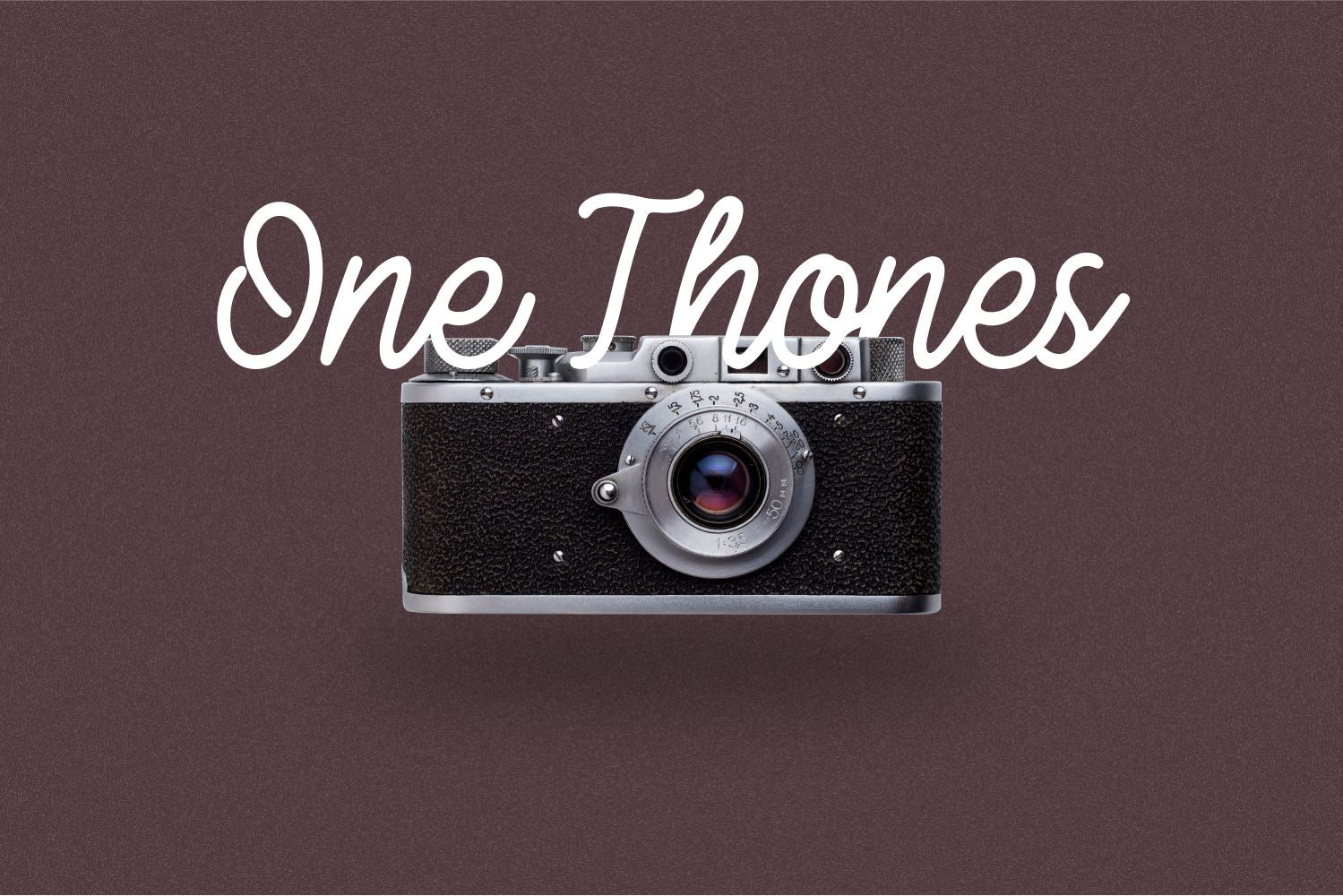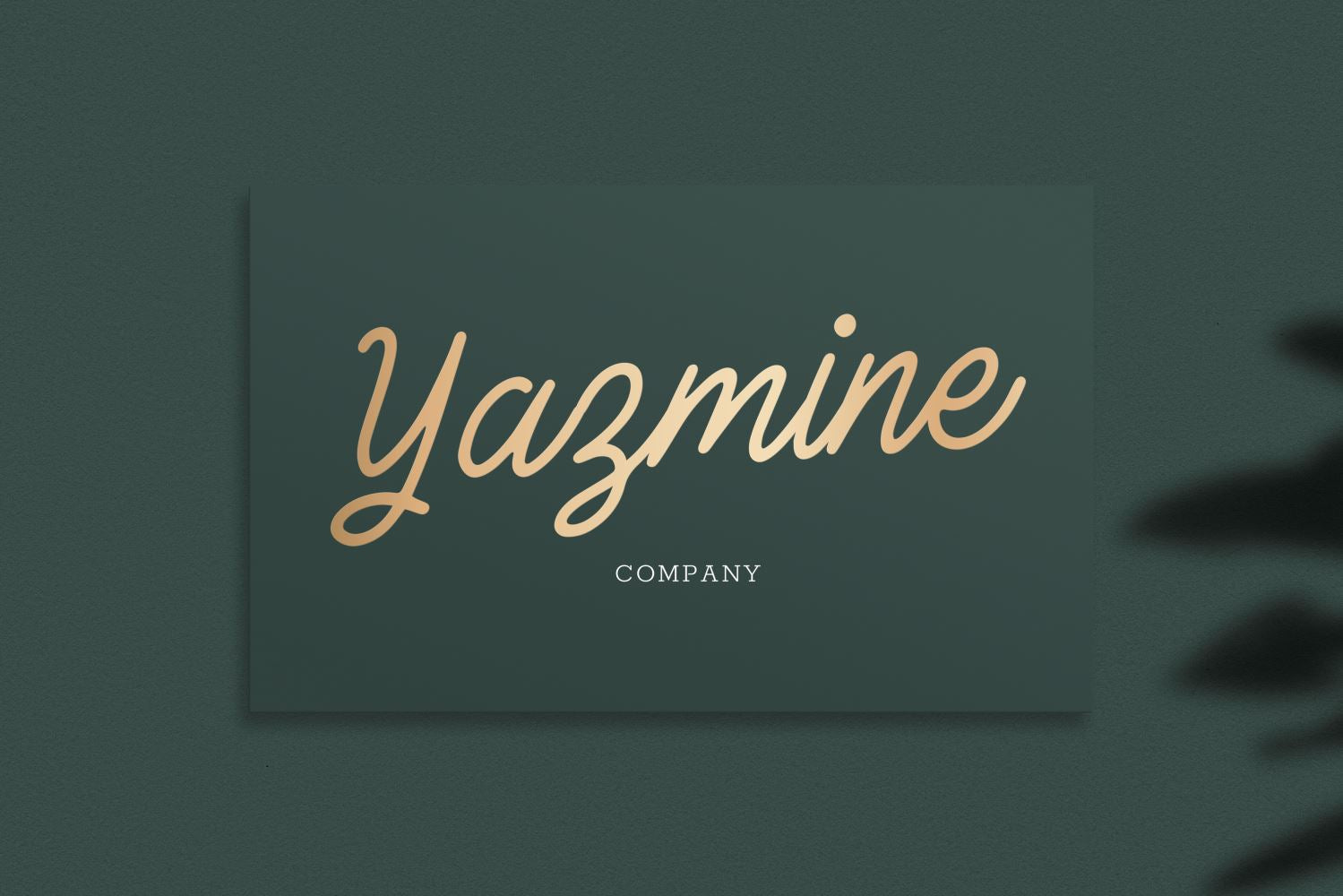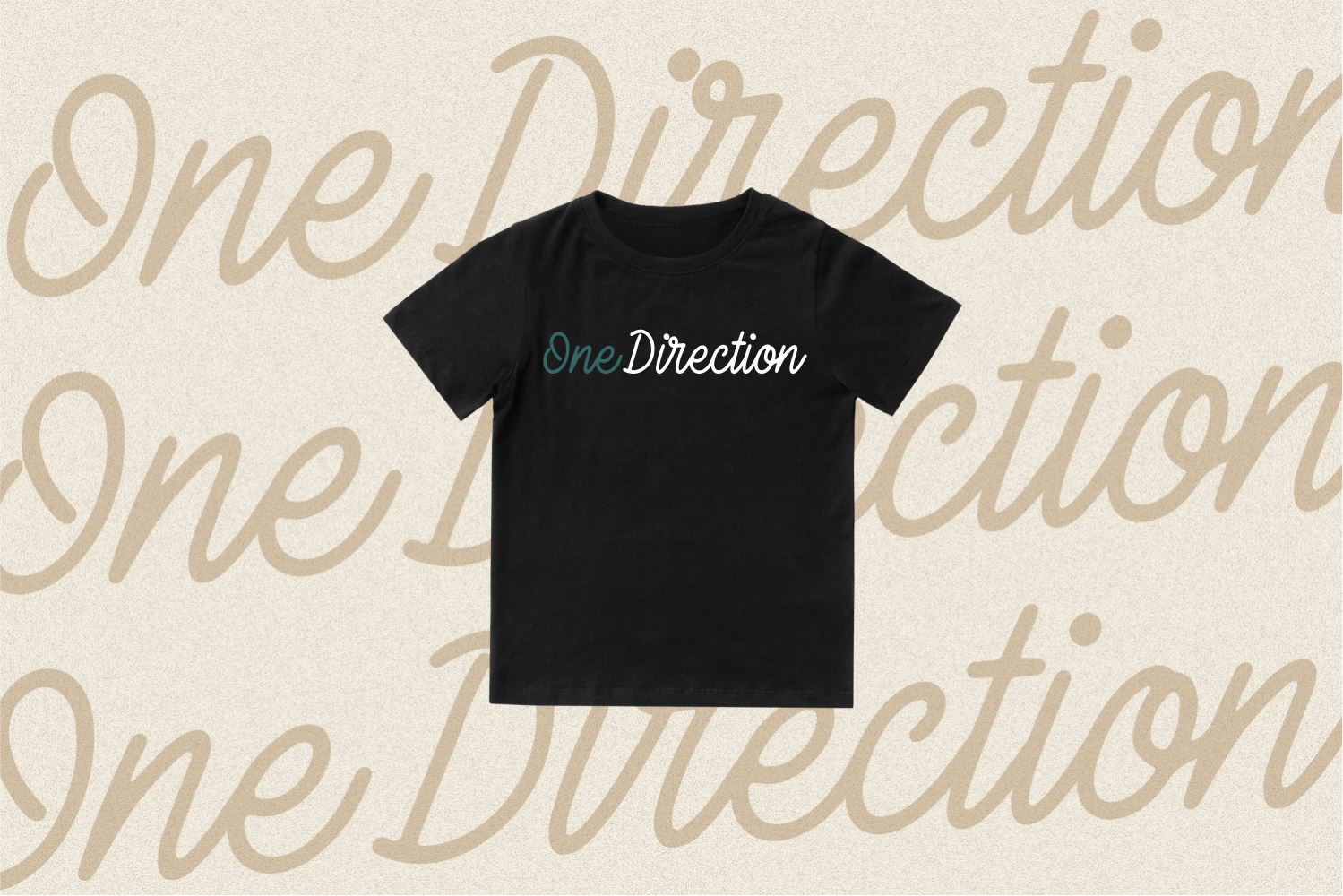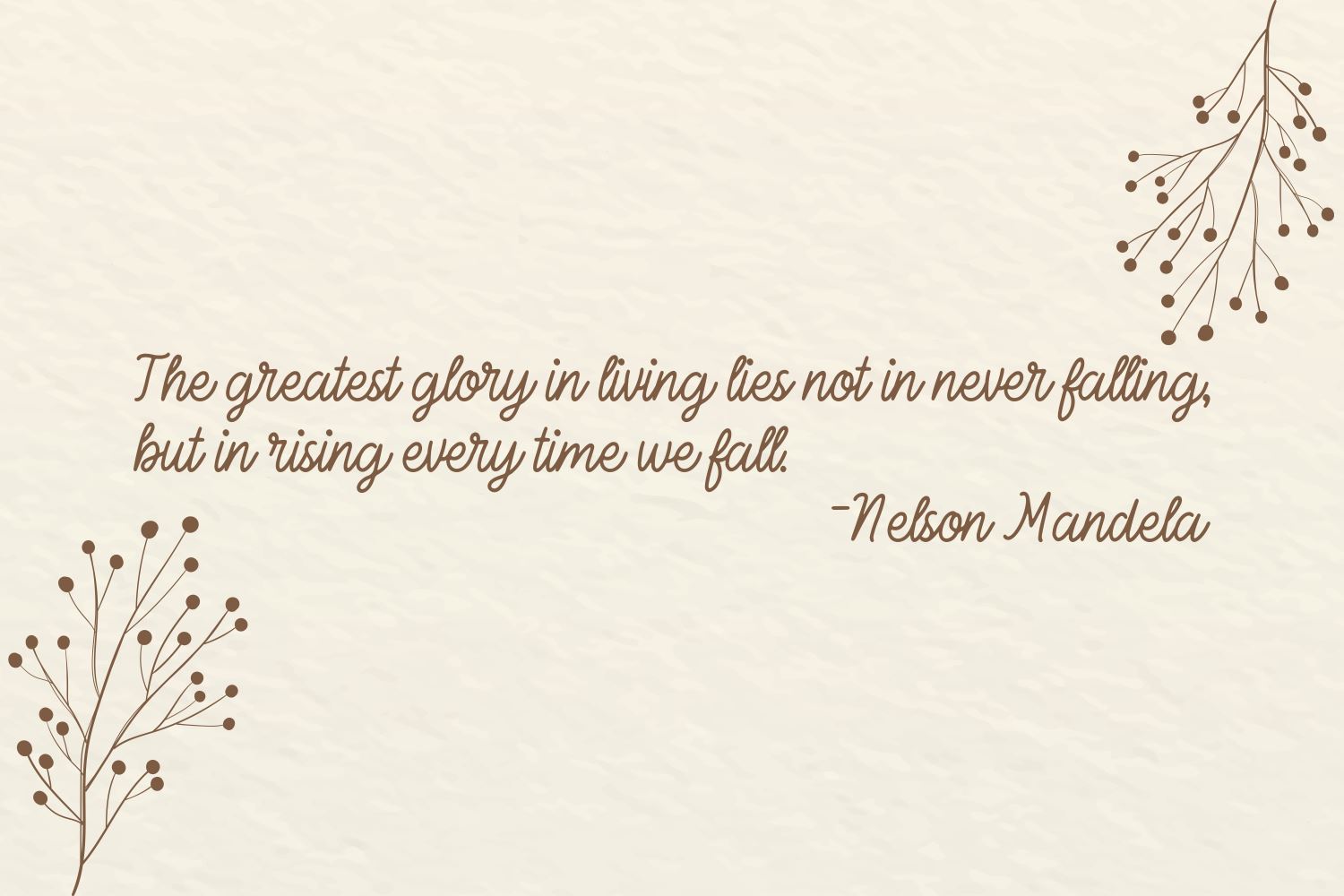
About Gelatique
Introducing Gelatique Font by Forberas Club Gelatique is a Modern Handwritten Font. Gelatique is perfect for book cover, product packaging, branding project, megazine, social media, wedding, or just used to express words above the background.This font includes TTF and OTF, This font also multilingual support.